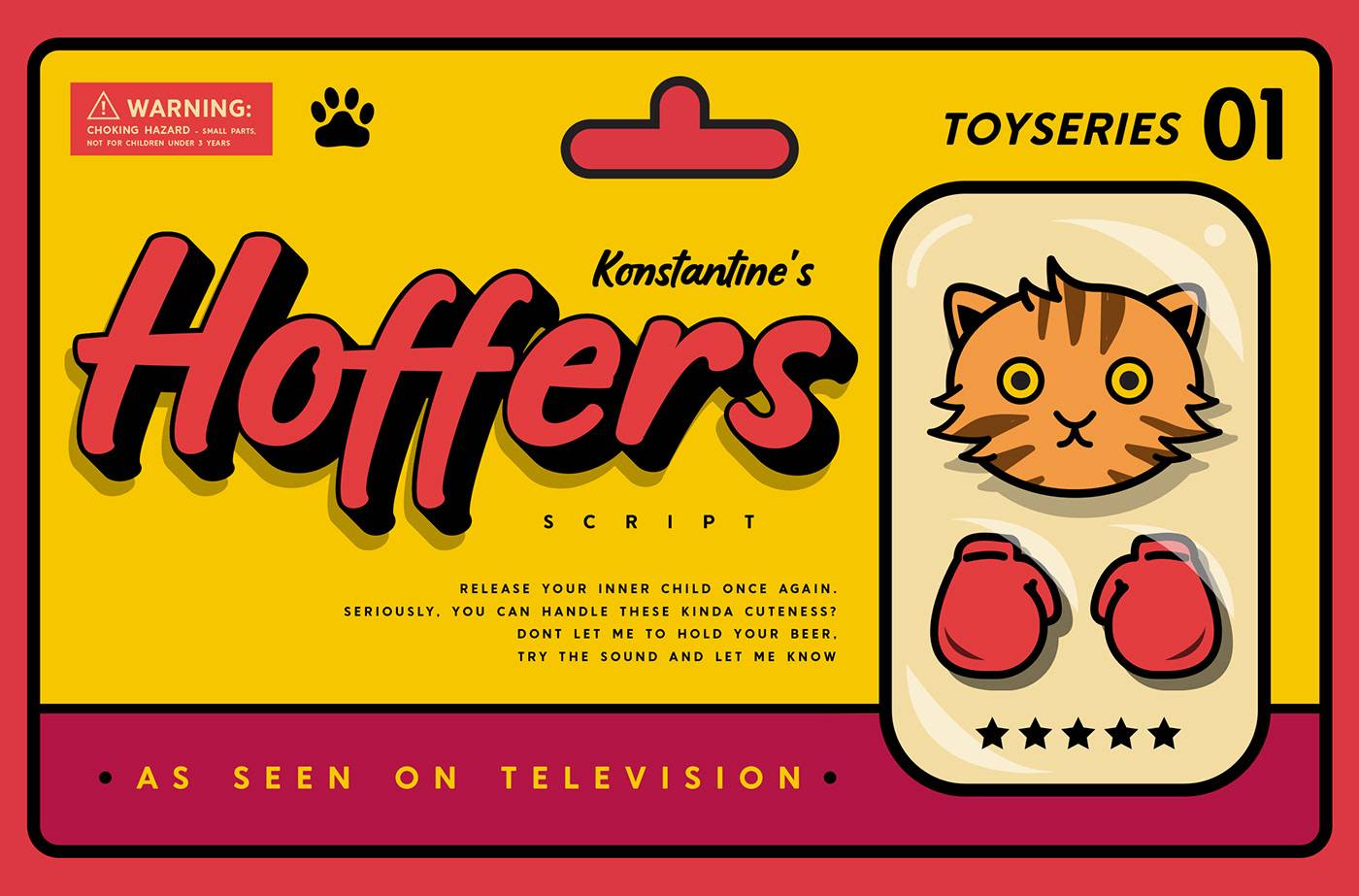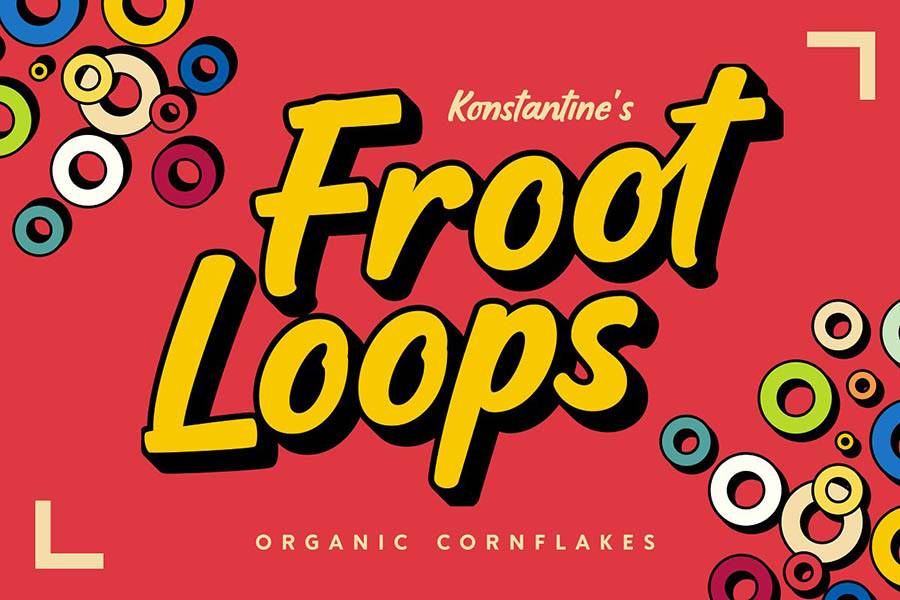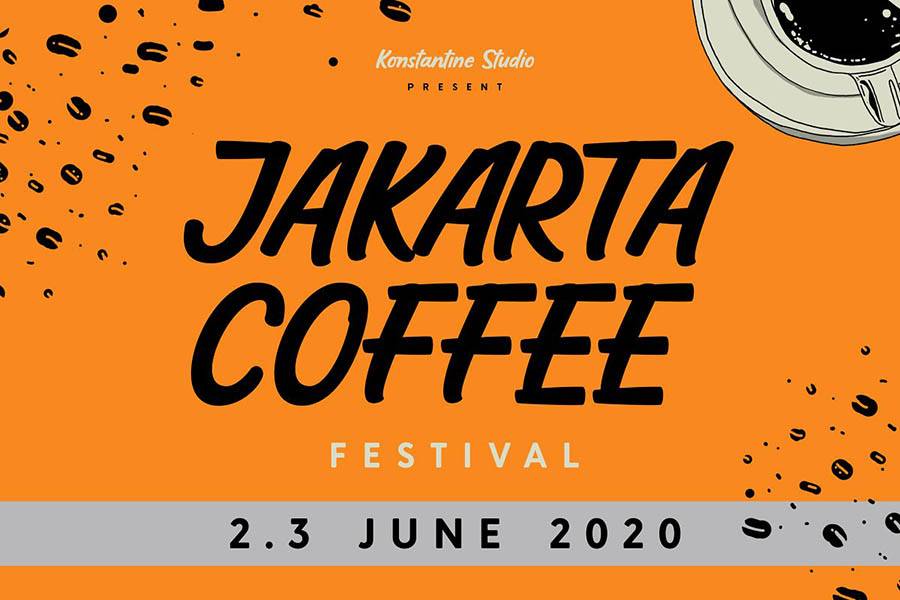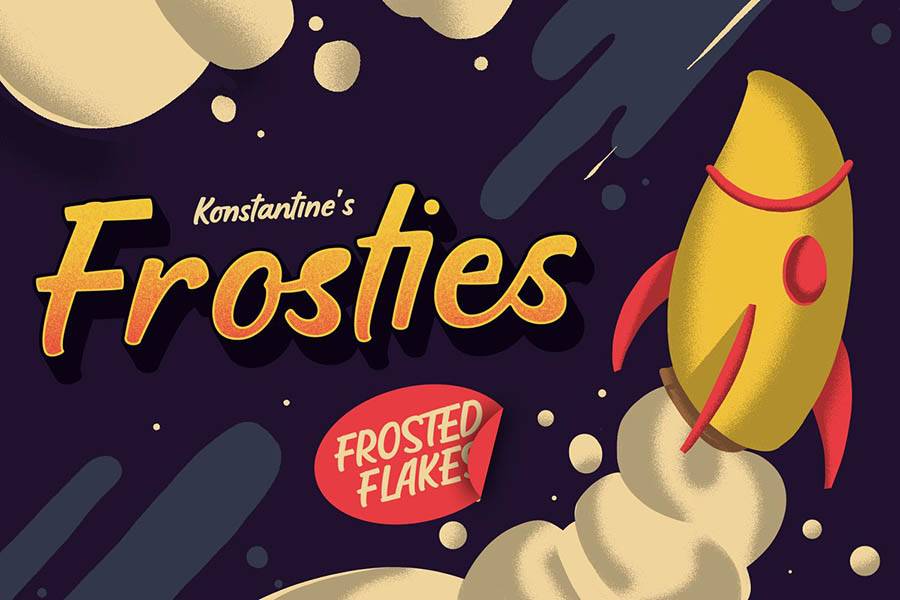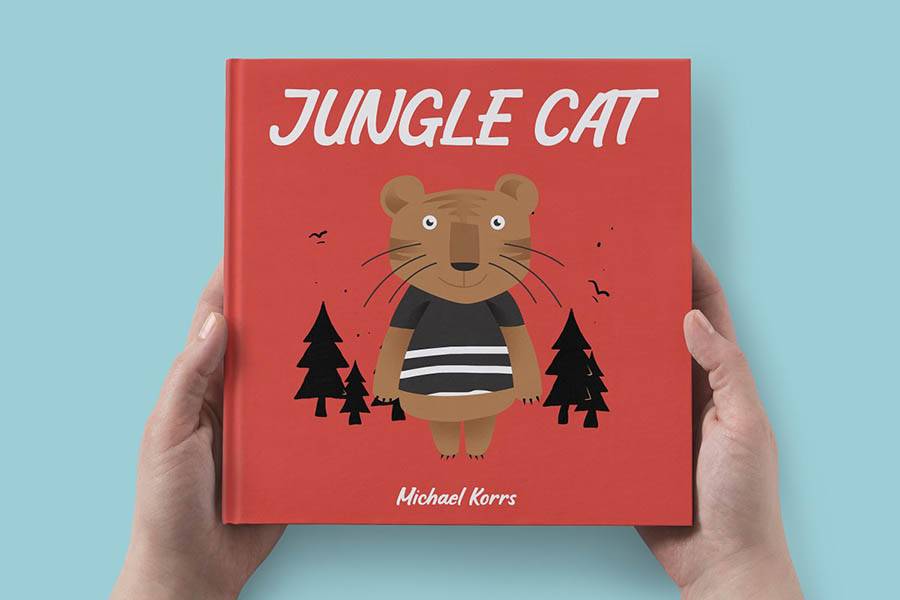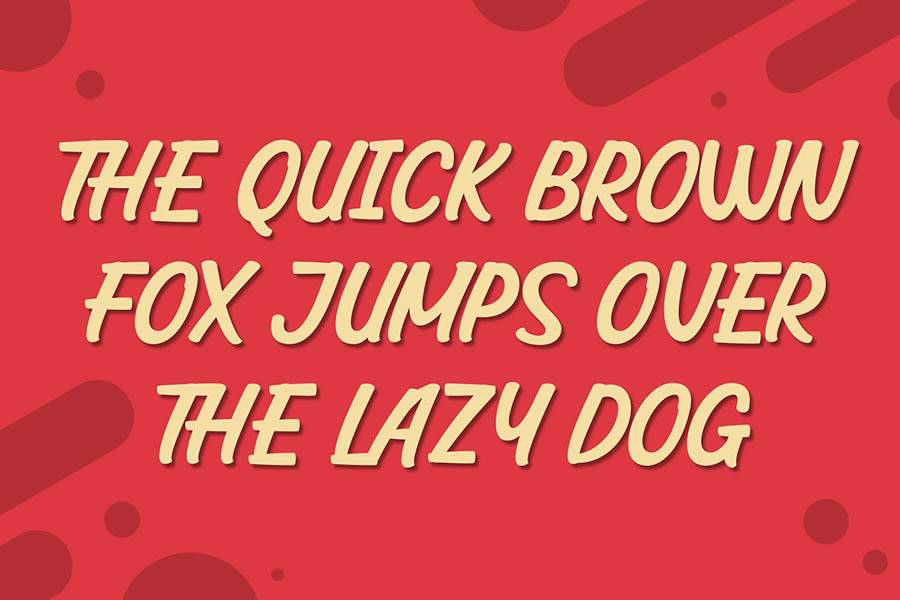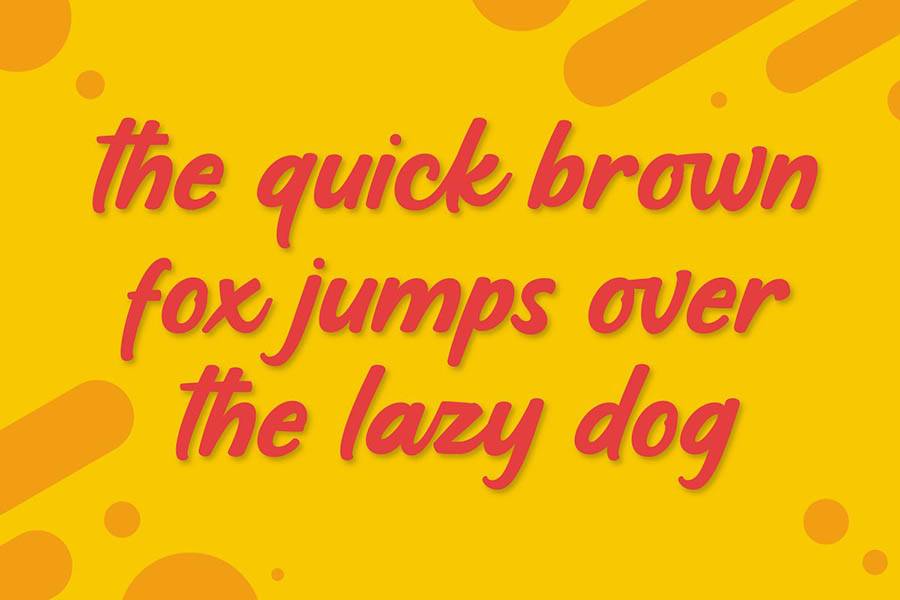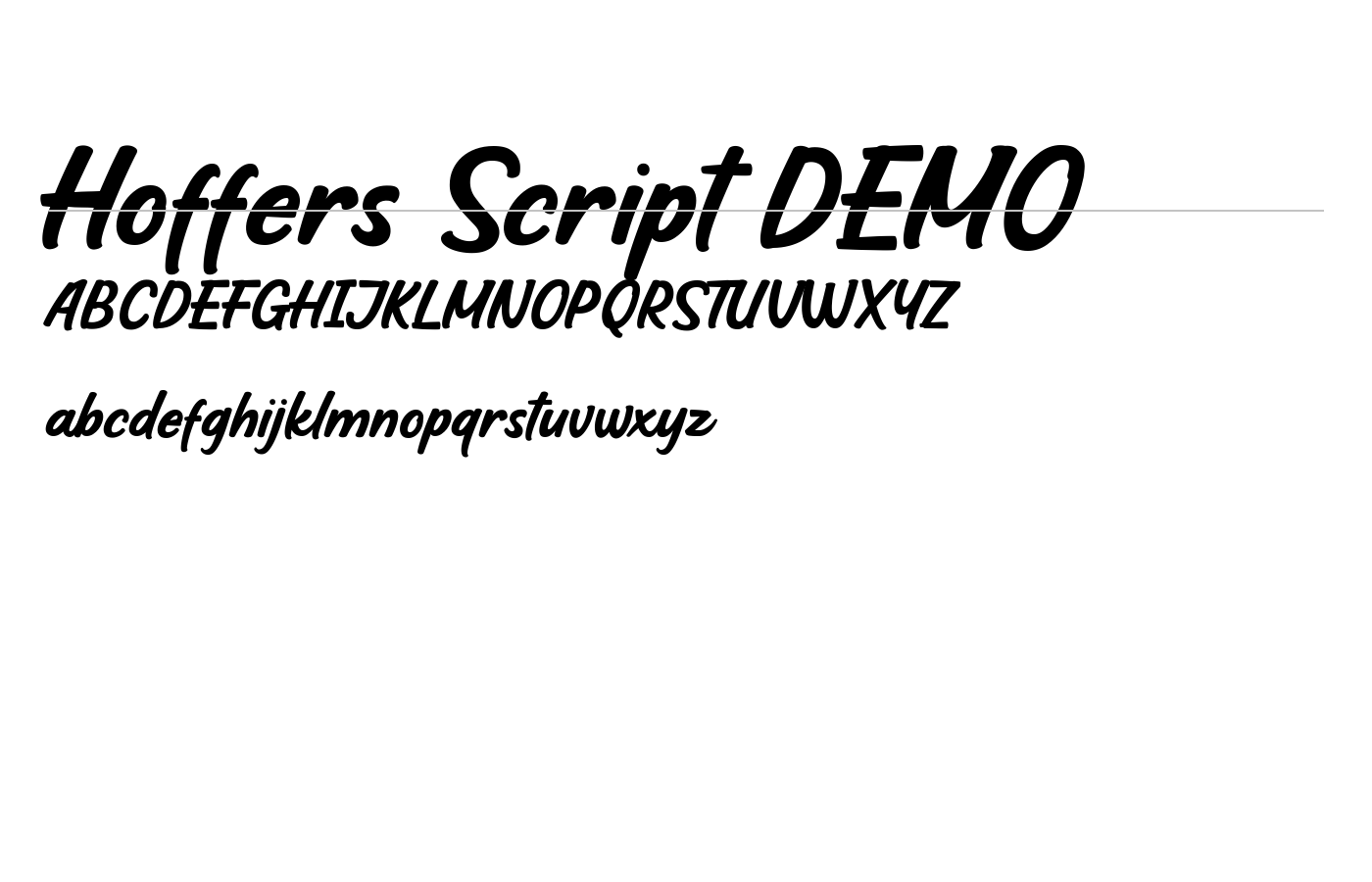
Hoffers Playful Display Font
Say Hello to Hoffers Playful Display Font! A bold and casual script typeface with the implementation of markers handwriting vibes. Some are connected and the others aren’t. Perfectly fit for casual logotype, food, and beverage branding, book covers, anytime you need to tell fun stories, Hoffers is the answer.